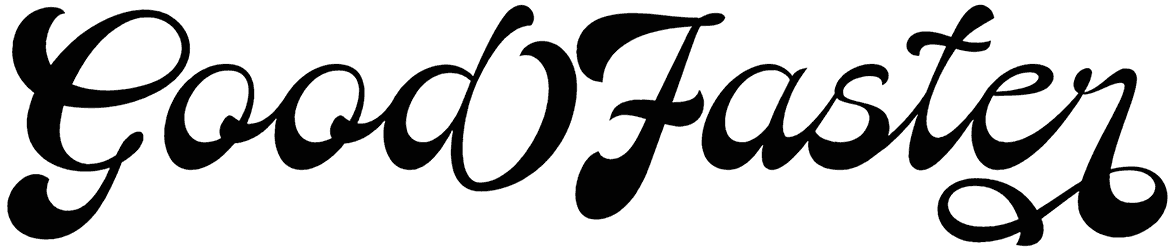
Good Faster Font
Good Faster is an old school font whose characters look like musical notes and are able to deliver a feeling of momentum, drama, joy, or vitality.
Aside from not supporting numbers, this lovely 70s font can boost the efficiency of your blog posts, digital banners, product packaging, video game brochures, or magazines. If you need more fonts in the same category, don’t forget to check out the RB archive for more products.